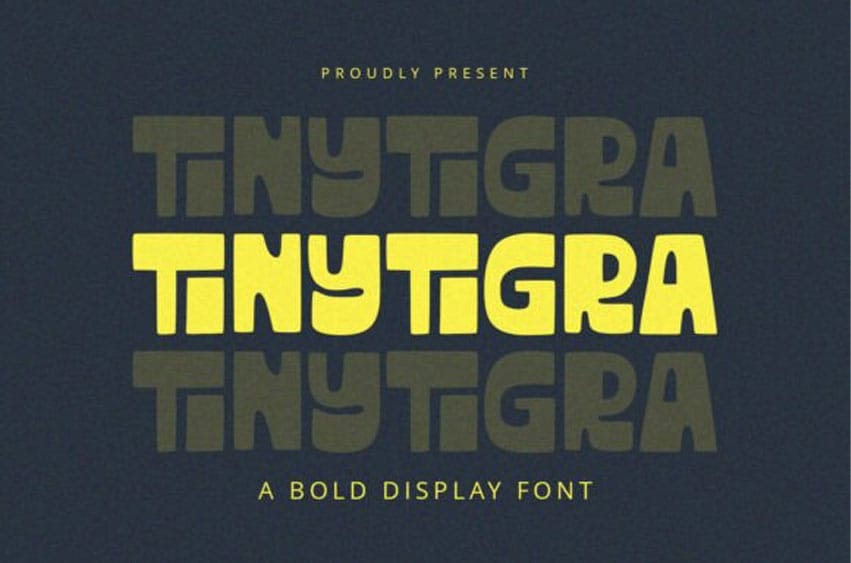
Tinytigra Font is a display font with a cute and playful feel.
It will be perfectly used for magazines, packaging, posters, shopping bags, t-shirts, book covers, photography, special events, and other design projects.